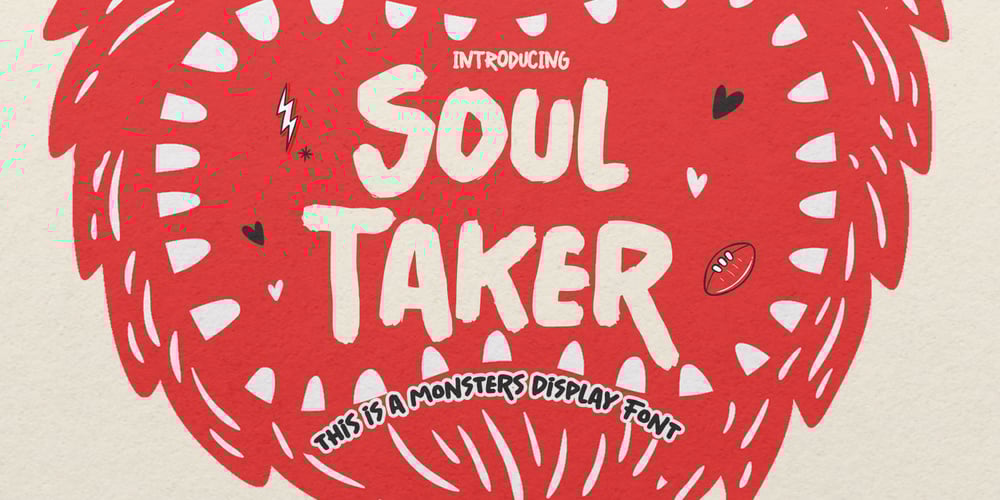
Soul Taker Font Family was designed by Abdul Malik Wisnu, Anang Fibriyanto and published by Gassstype. Soul Taker contains 1 styles and family package options. Hello Everyone, introduce our new product Font Soul Taker This is a Monsters Display Font.This is a Textured Natural Style and classy style with a clear style and dramatic movement.You can activate 3 Ligatures and 7 Alternate glyphs OpenType panel.